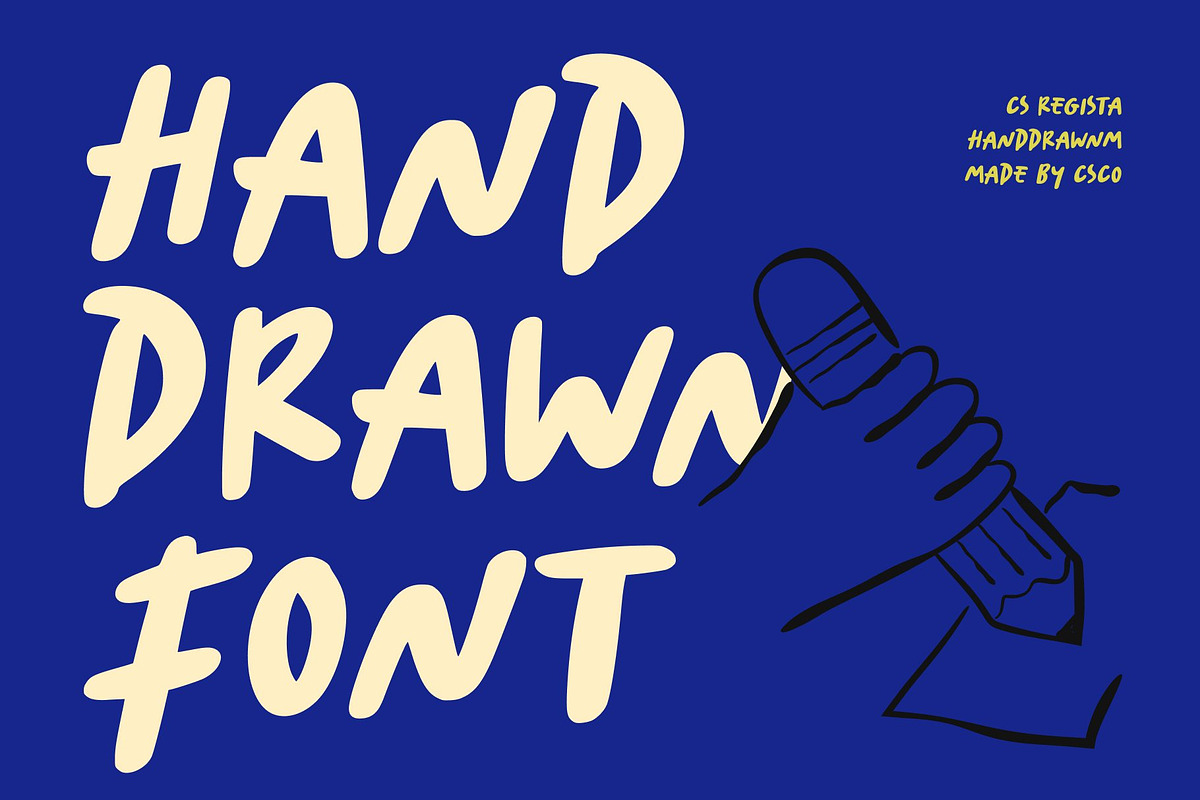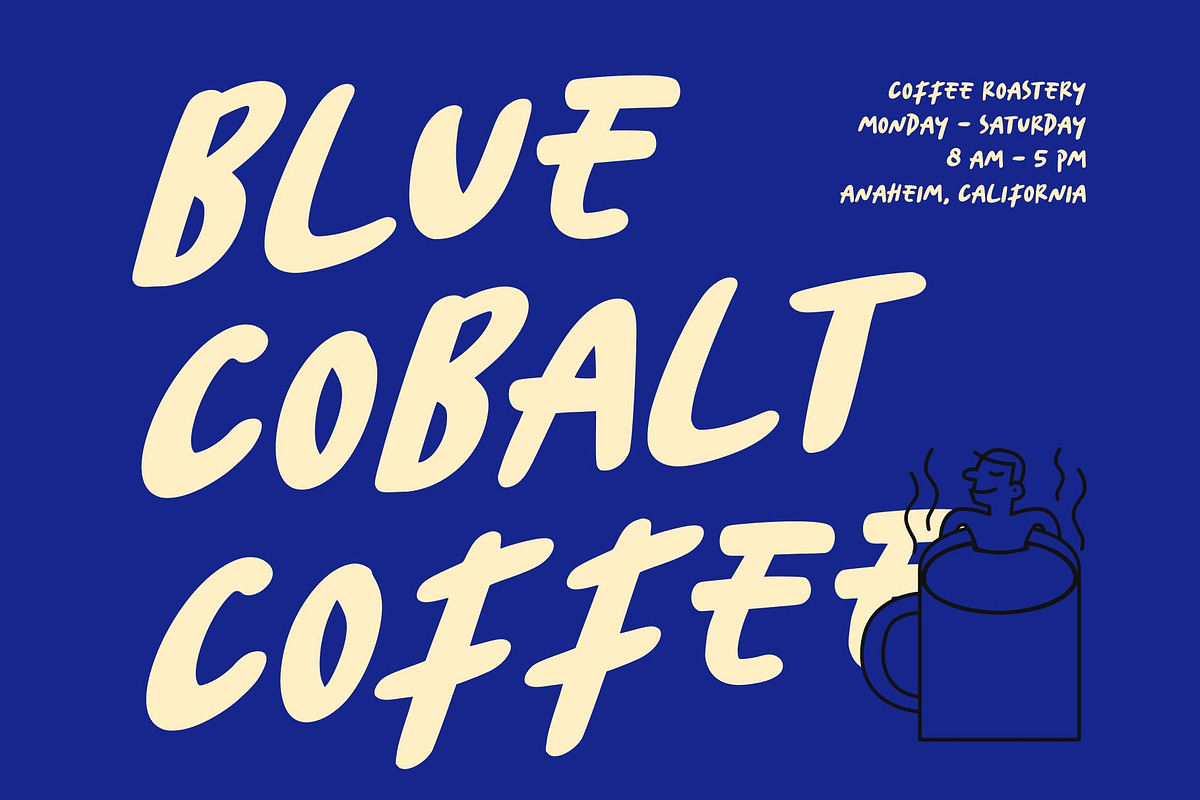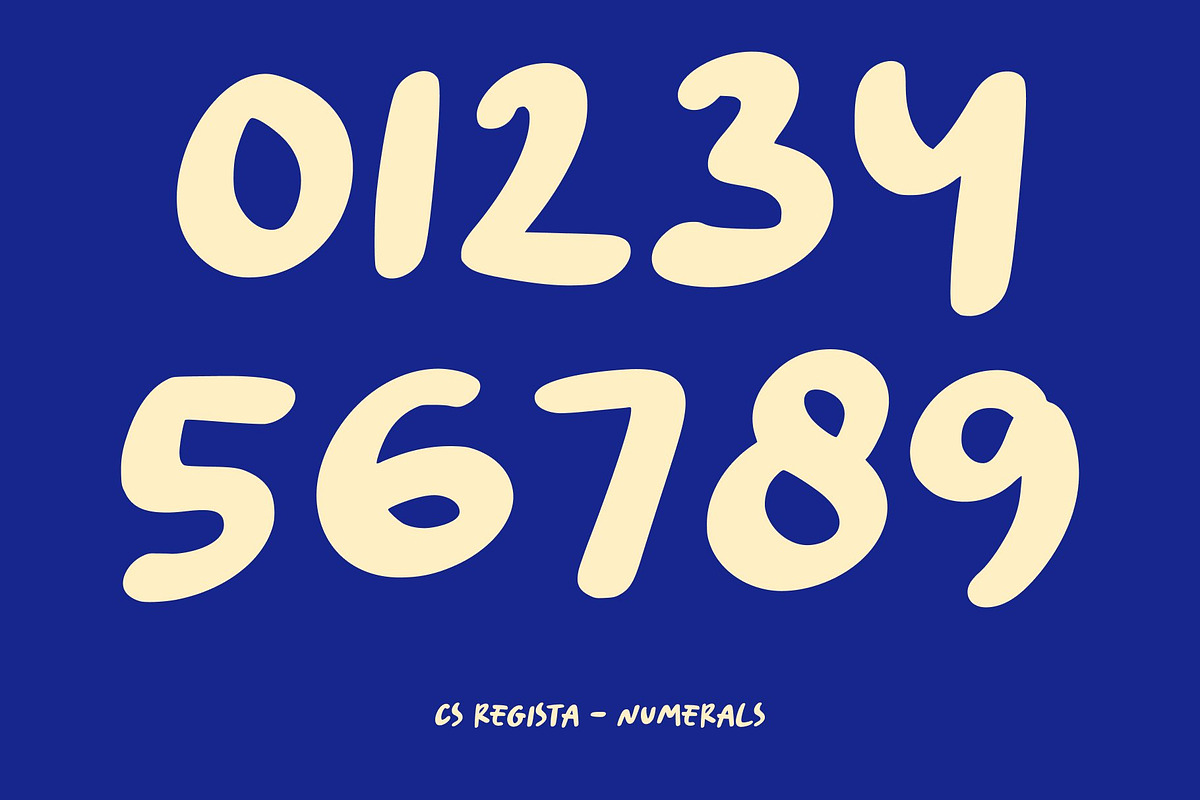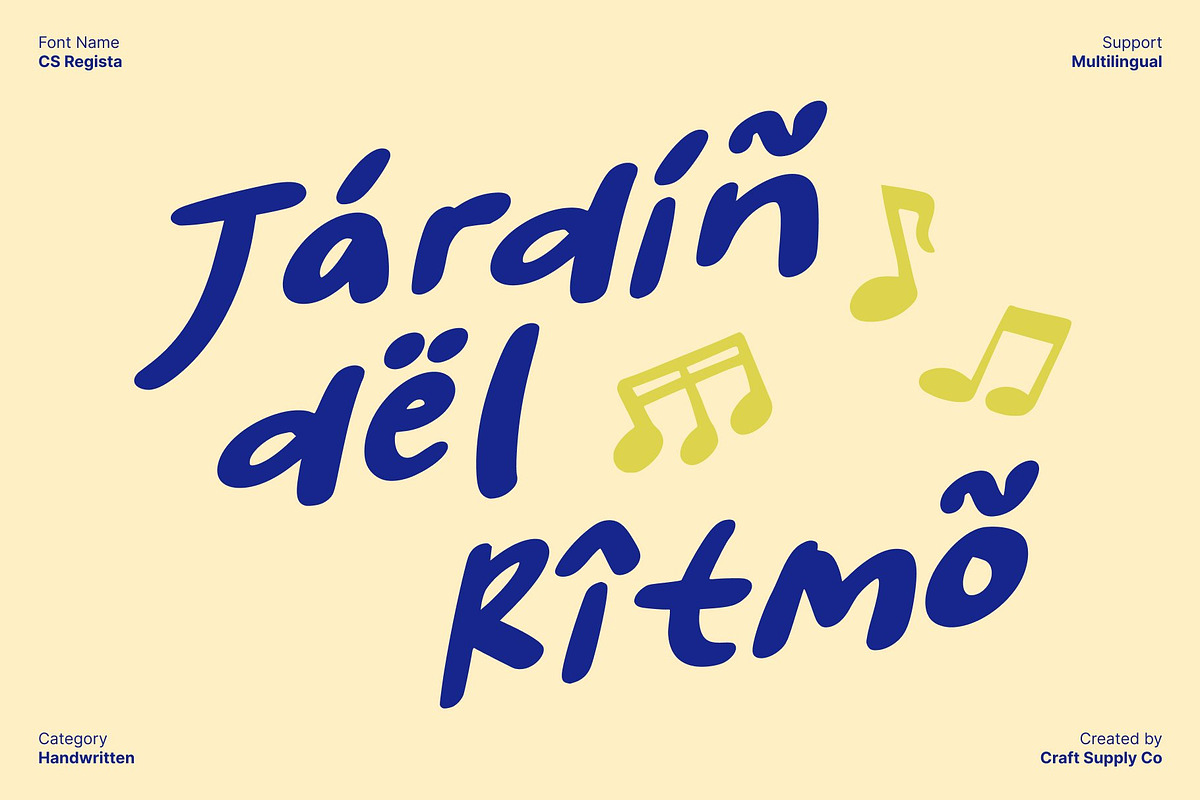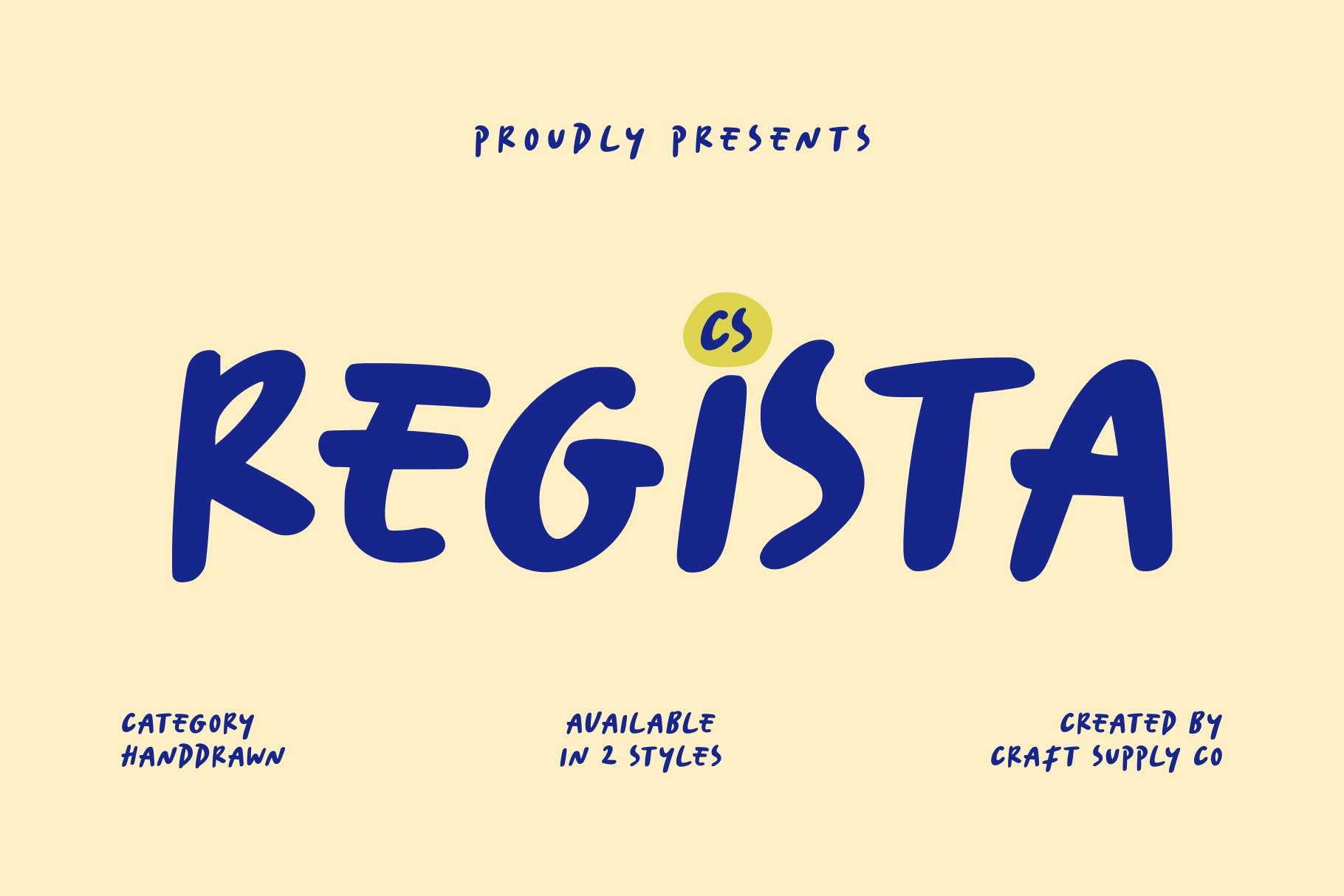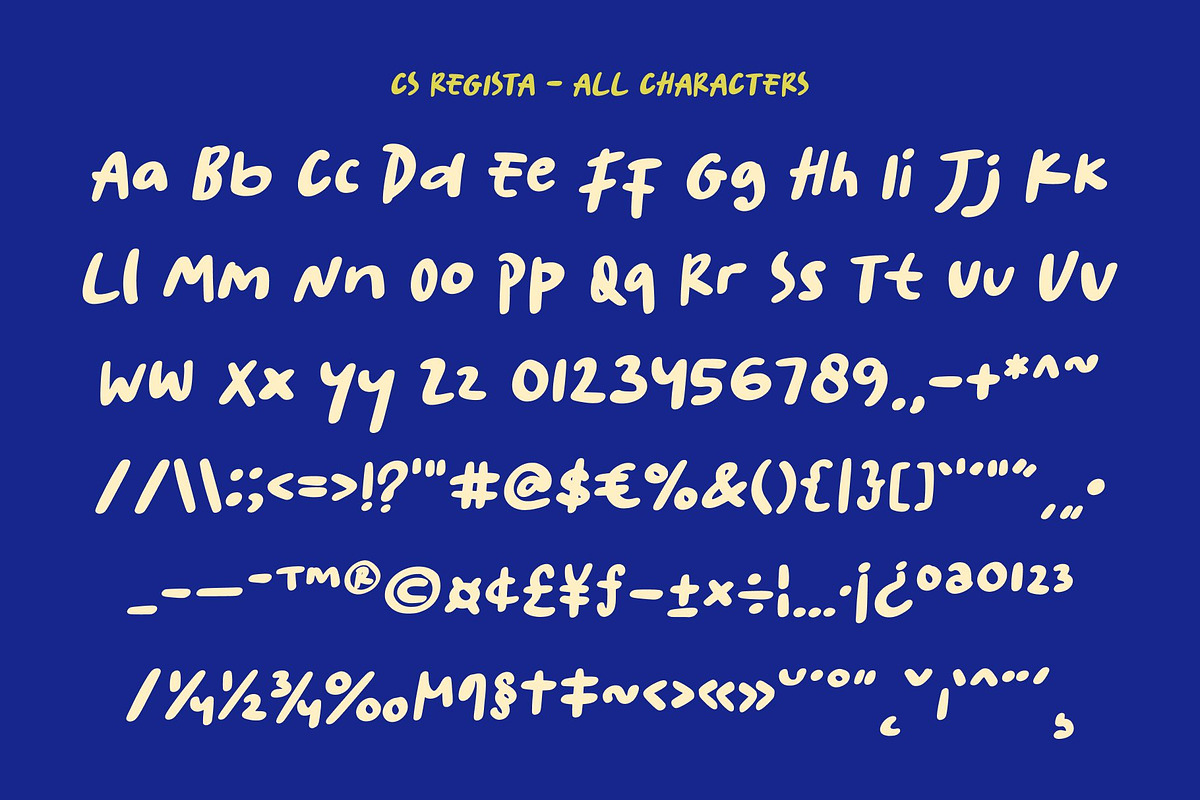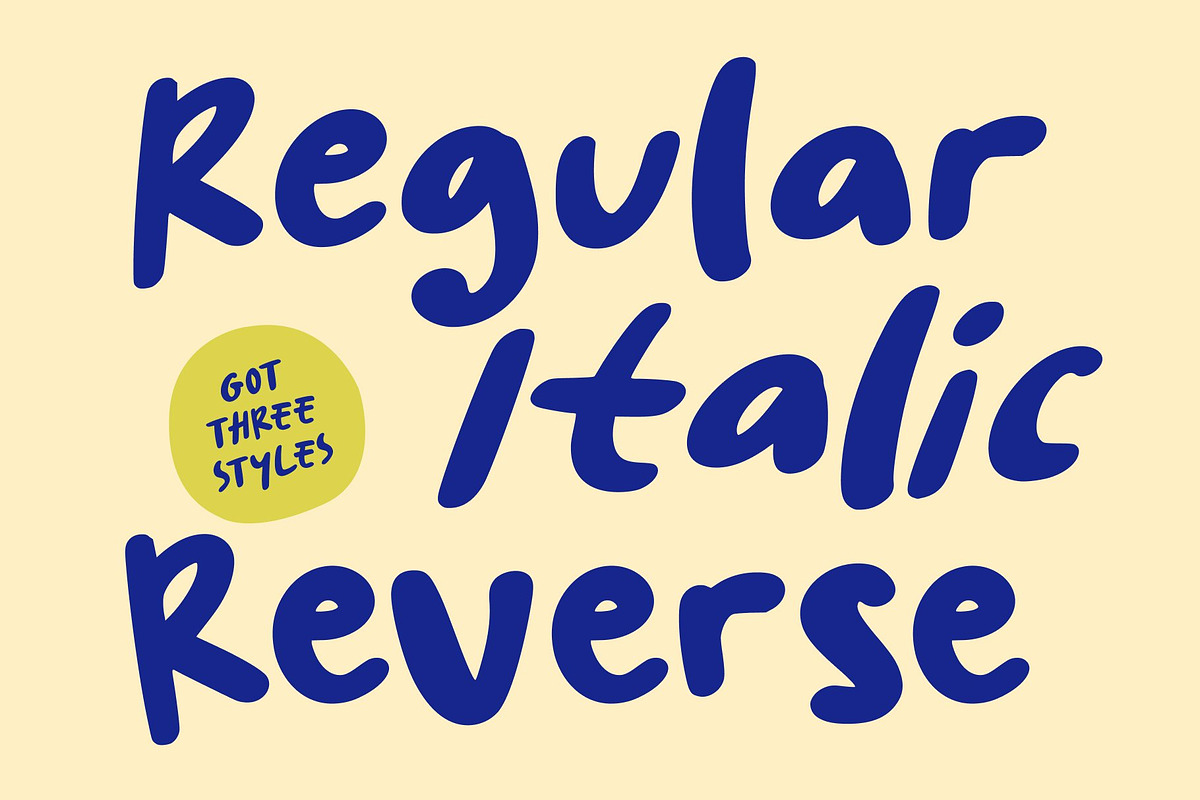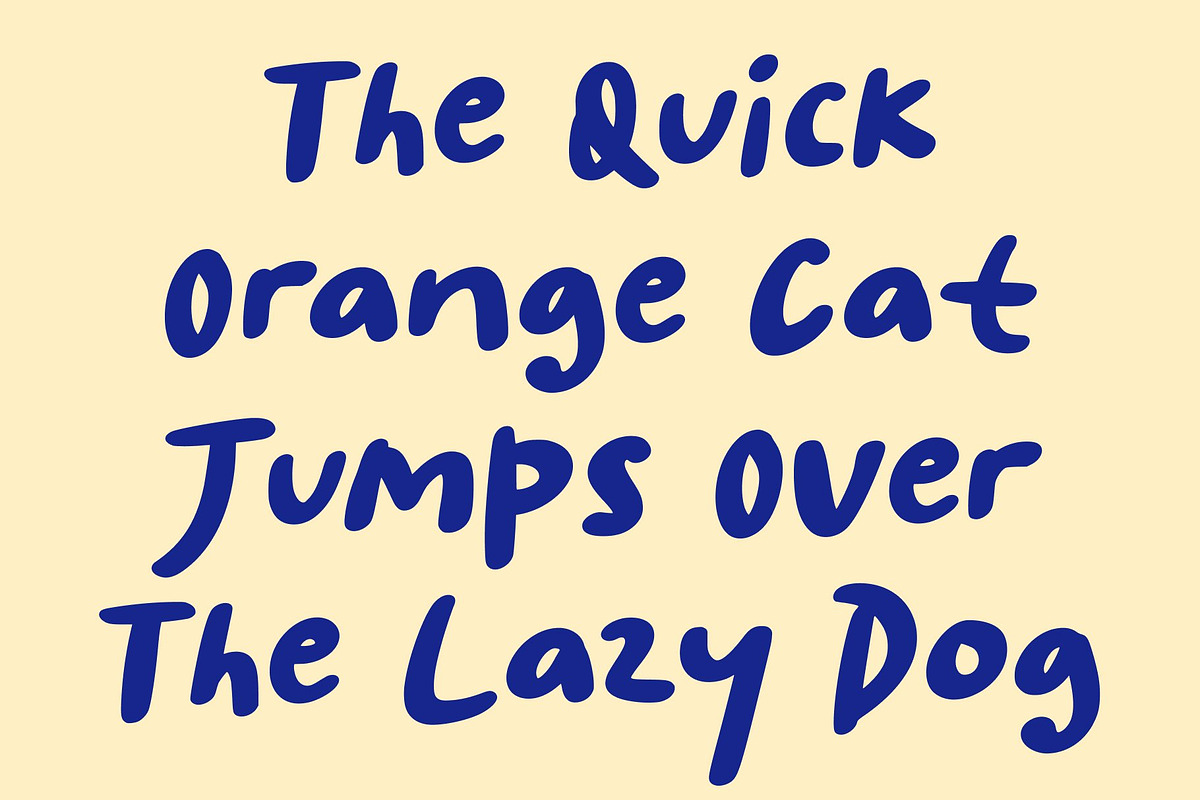
CS Regista – Handwritten Font
CS Regista – Natural Marker Font with Handwritten Charm
Polished Sans Serif with Handwritten Personality This is a Marker font that combines clean sans serif forms with the charm of natural handwriting. Each letter is infused with subtle handmade texture, giving the typeface an authentic, handcrafted feel while maintaining a polished and professional appearance.
Handwritten Details for Expressive Character The handwritten elements in this font enhance the natural flow of each character. Soft curves, organic strokes, and slightly irregular edges bring warmth and personality to the text, ensuring your designs feel approachable, lively, and visually engaging. These thoughtful details make it ideal for projects that benefit from a human touch.
Versatile Marker Style for Creative Projects This font’s marker-inspired design is bold yet flexible, making it suitable for a variety of creative applications. The font works beautifully for headlines, logos, editorial layouts, digital content, and more. Its clear, legible forms combined with expressive strokes make every word stand out with charm and professionalism.
Perfect for Editorials, Branding, and Digital Designs This font excels in editorials, branding, digital projects, posters, and creative designs. Whether you’re crafting stylish magazine layouts, modern social media graphics, or innovative branding elements, this font delivers a handmade, expressive quality that elevates every project.
- CS Regista Regular
- CS Regista Italic
- CS Regista Reverse Italic